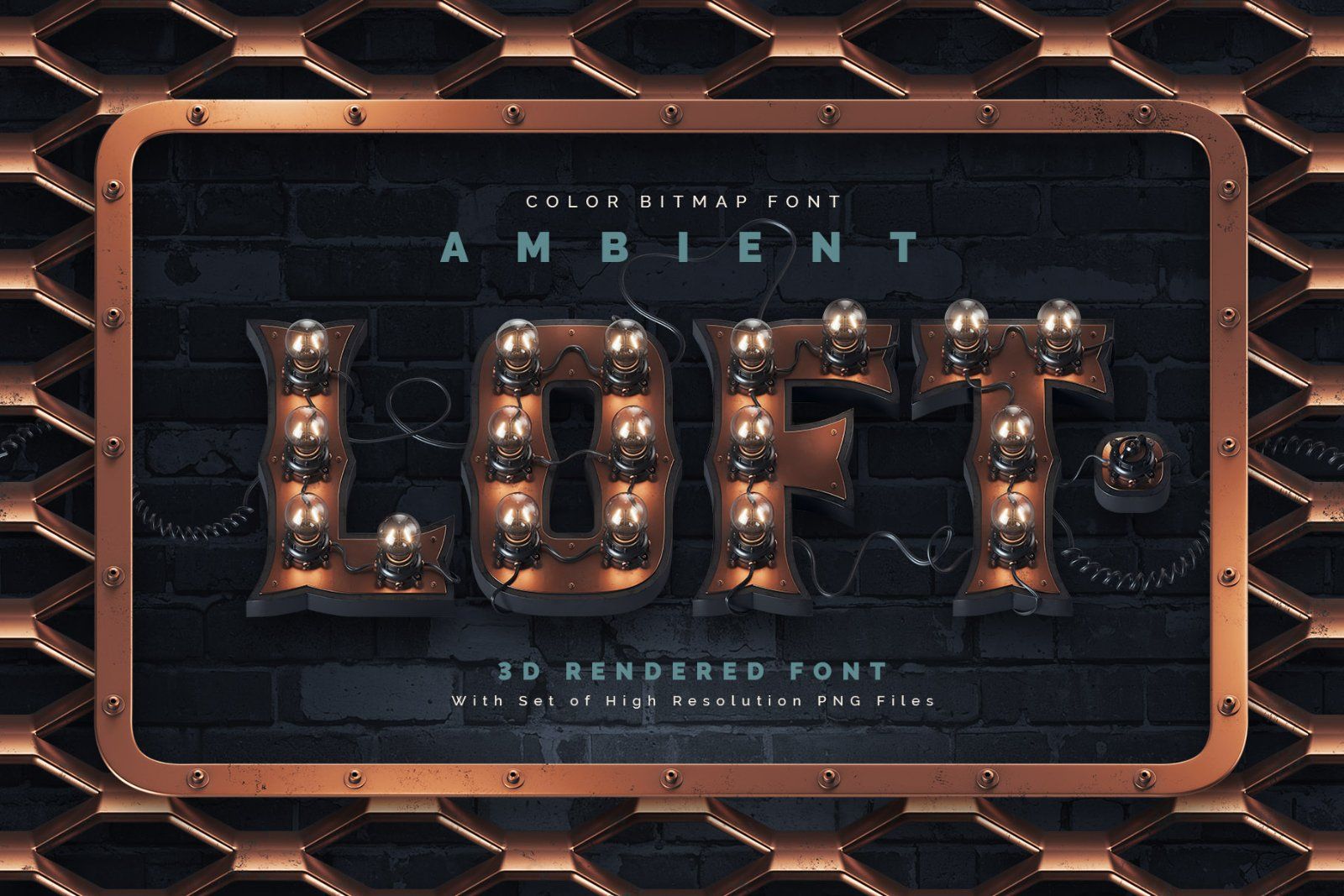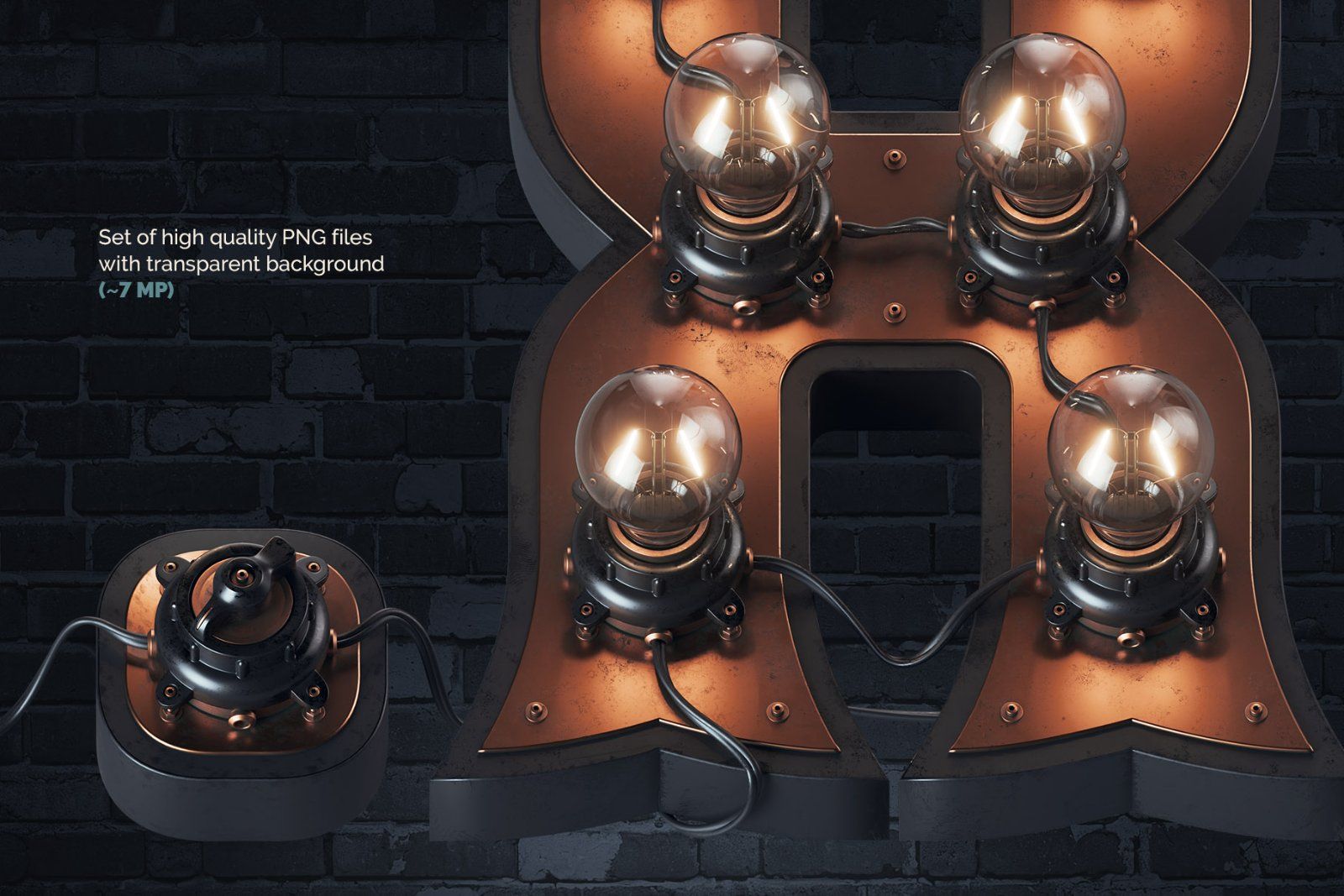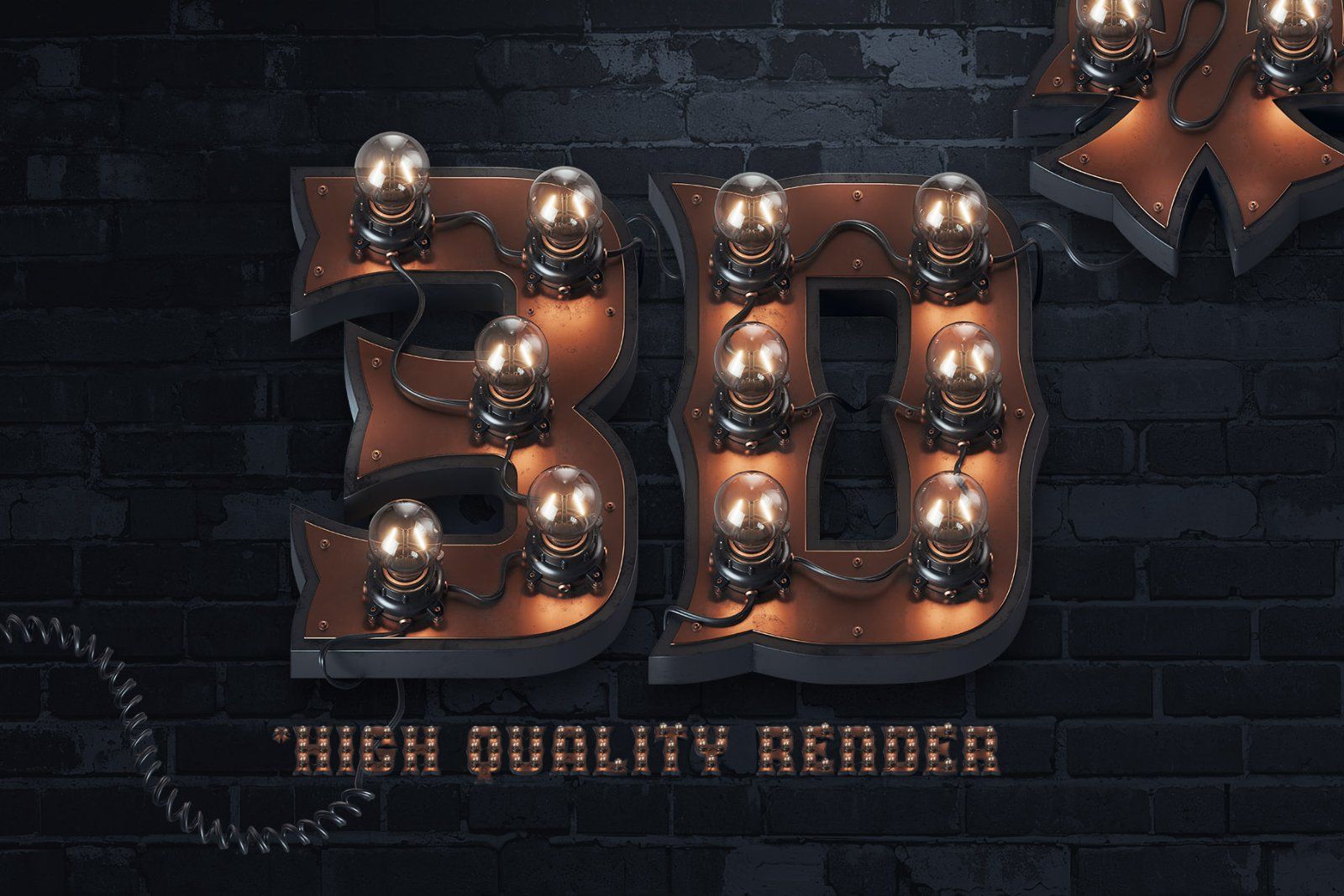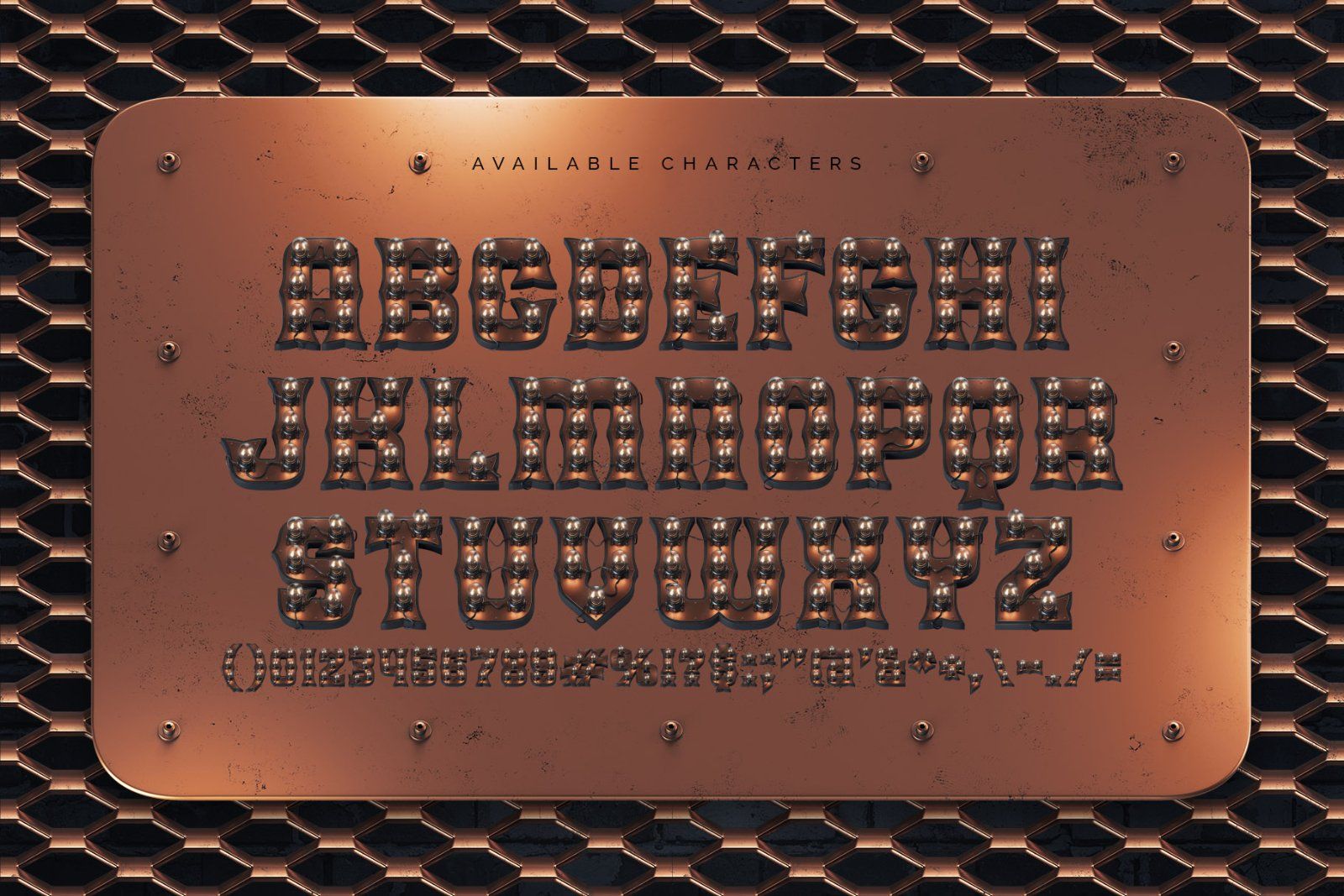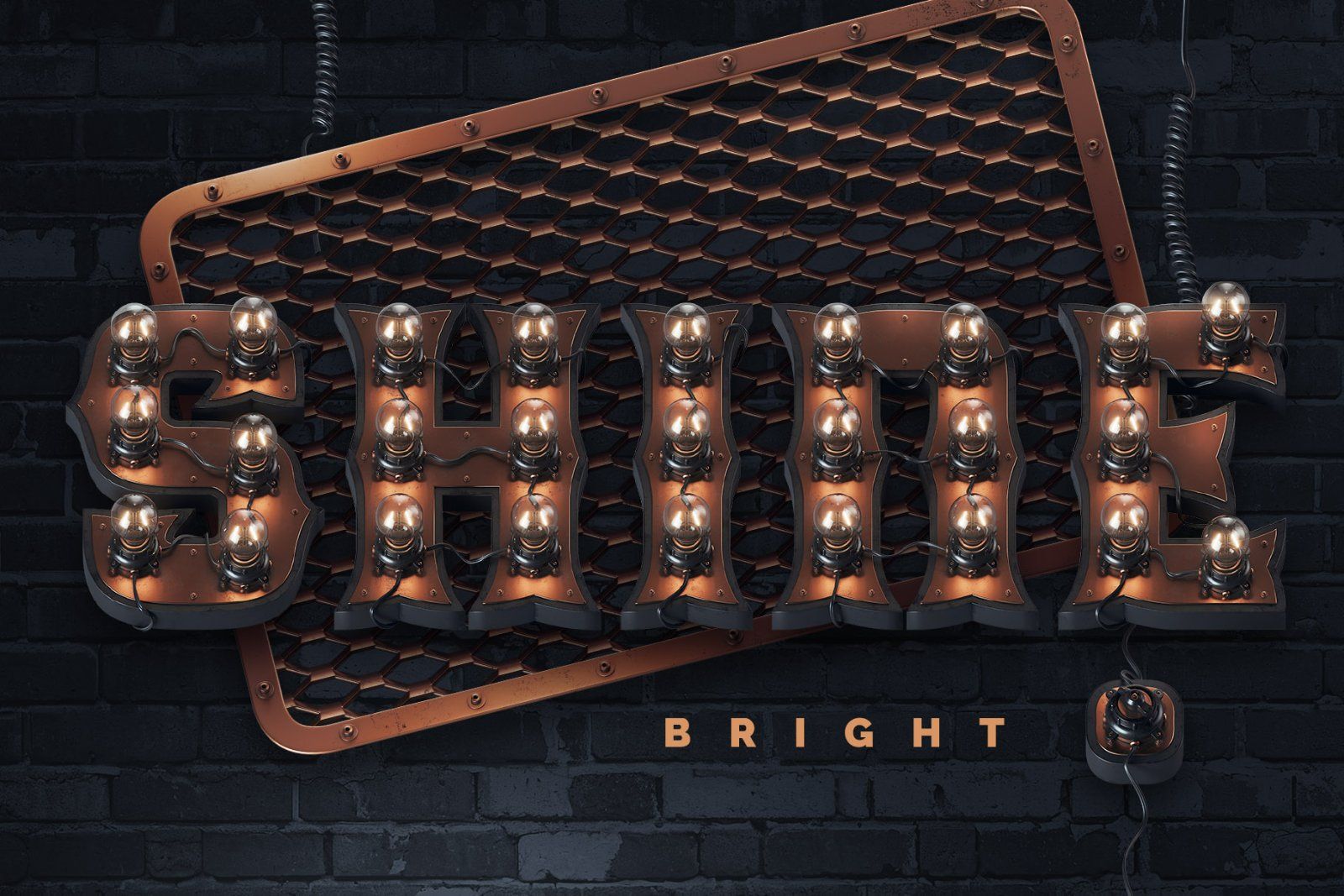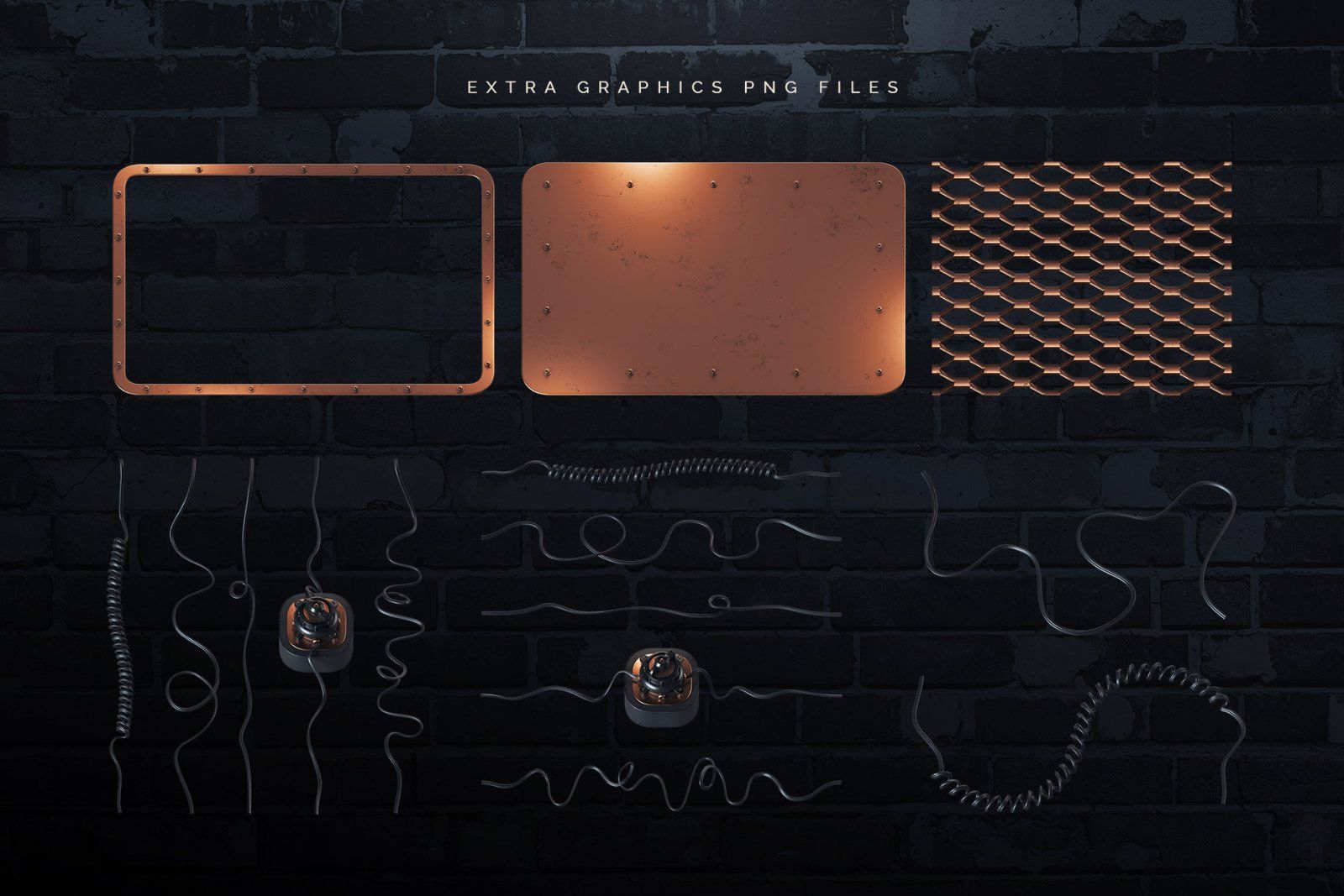
Hello! Introducing Ambient Loft, a vintage, creative font set. This 3D-rendered, high-quality typeface features a steampunk aesthetic with retro bulb lamps.
Ambient Loft is a color bitmap OpenType-SVG font, usable just like any standard OTF font. Additionally, the set includes high-resolution PNG files with transparent background (average resolution is 7 megapixels). Extra graphic elements, such as electric wires, frames, and brass mesh, are also provided in PNG format.